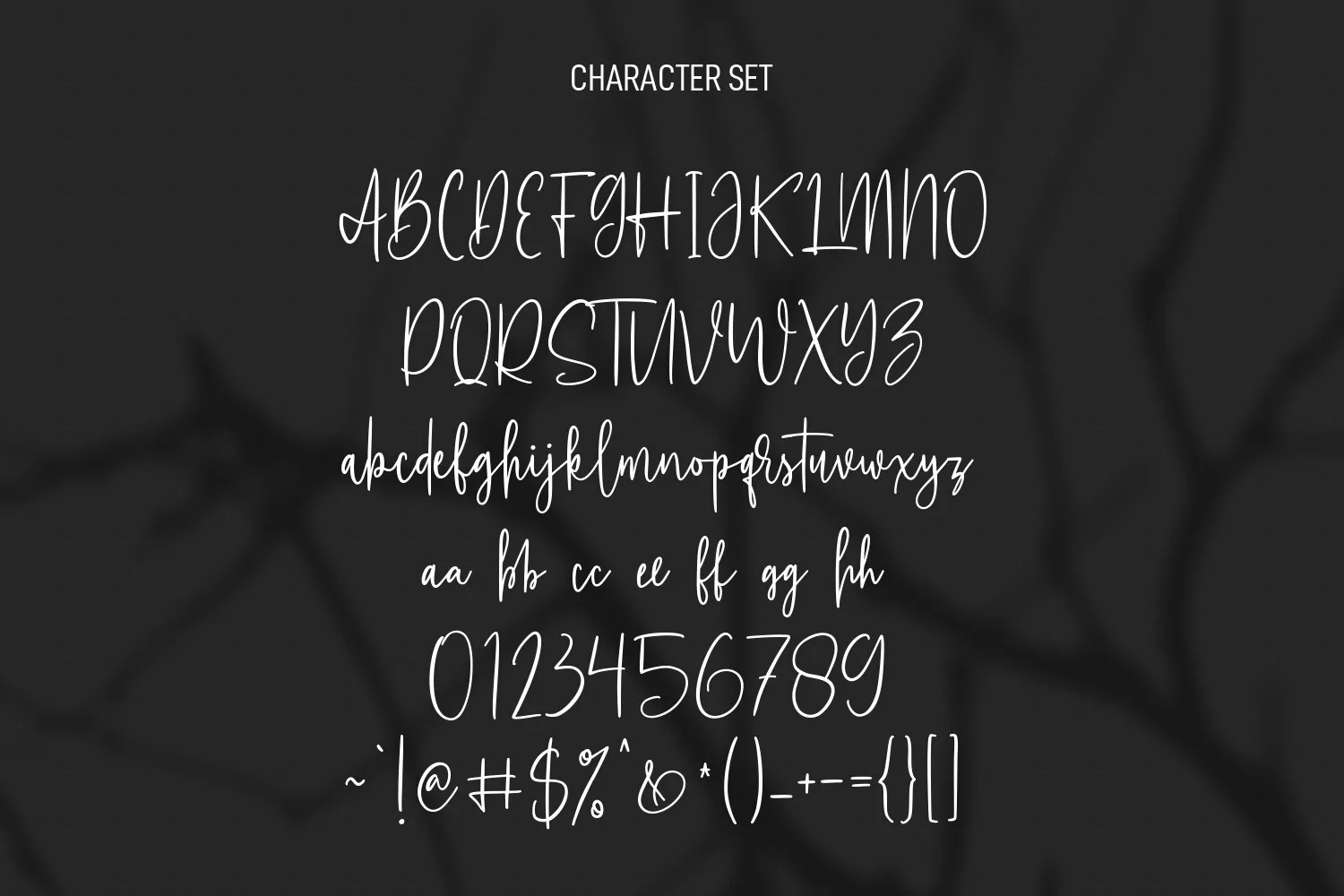
Marxistown is a handwritten script font. With light stroke, condensed and fun character with a bit of ligatures. To give you an extra creative work. Marxistown font support multilingual more than 100+ language. This font is good for logo design, Social media, Movie Titles, Books Titles, a short text even a long text letter and good for your secondary text font with sans or serif. Make a stunning work with Marxistown font.
Marxistown